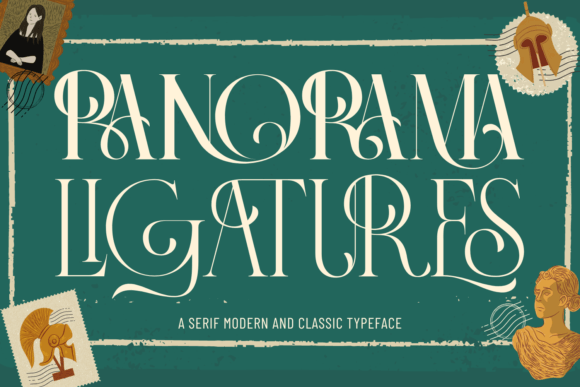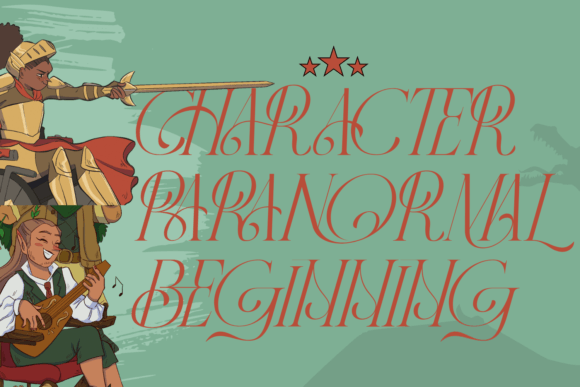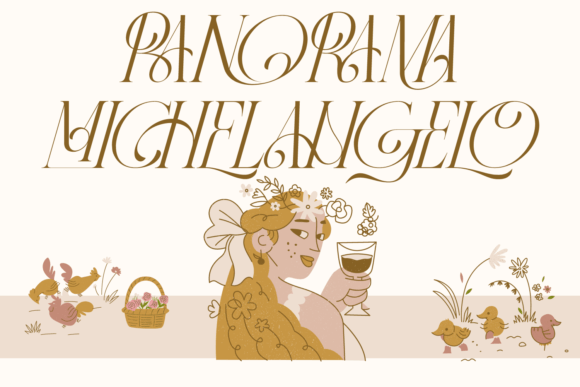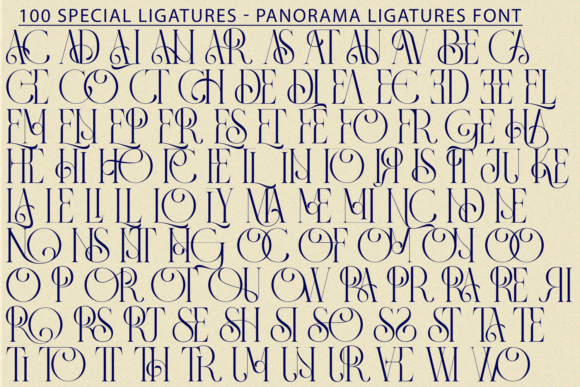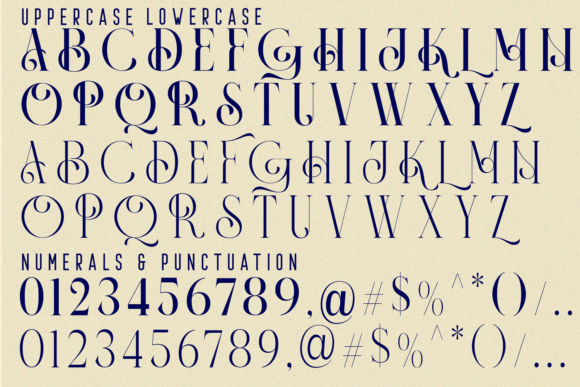
Panorama Ligatures Font is a font that combines modern with classic. Designed with balanced proportions and bold yet elegant lines, each letter displays impressive clarity and perfection, making it an ideal choice for projects that require boldness and firmness in every accent. You can use this font for any purpose, such as wedding invitation, book cover, poster, and any other project that need a typeface that have unique looks. This font also support multi language!
Panorama Ligatures was built with OpenType features and includes 100 ligatures, alternate, numbers, punctuation, and it also supports other languages.